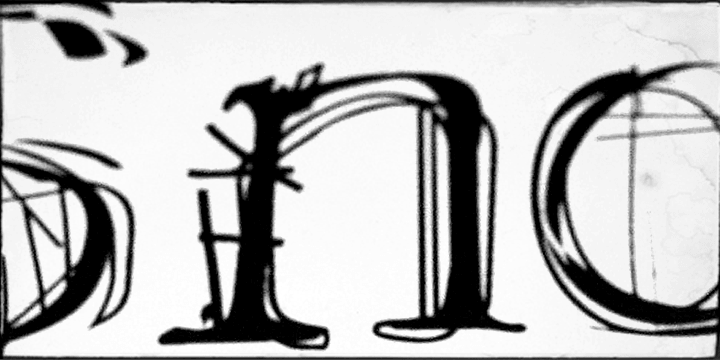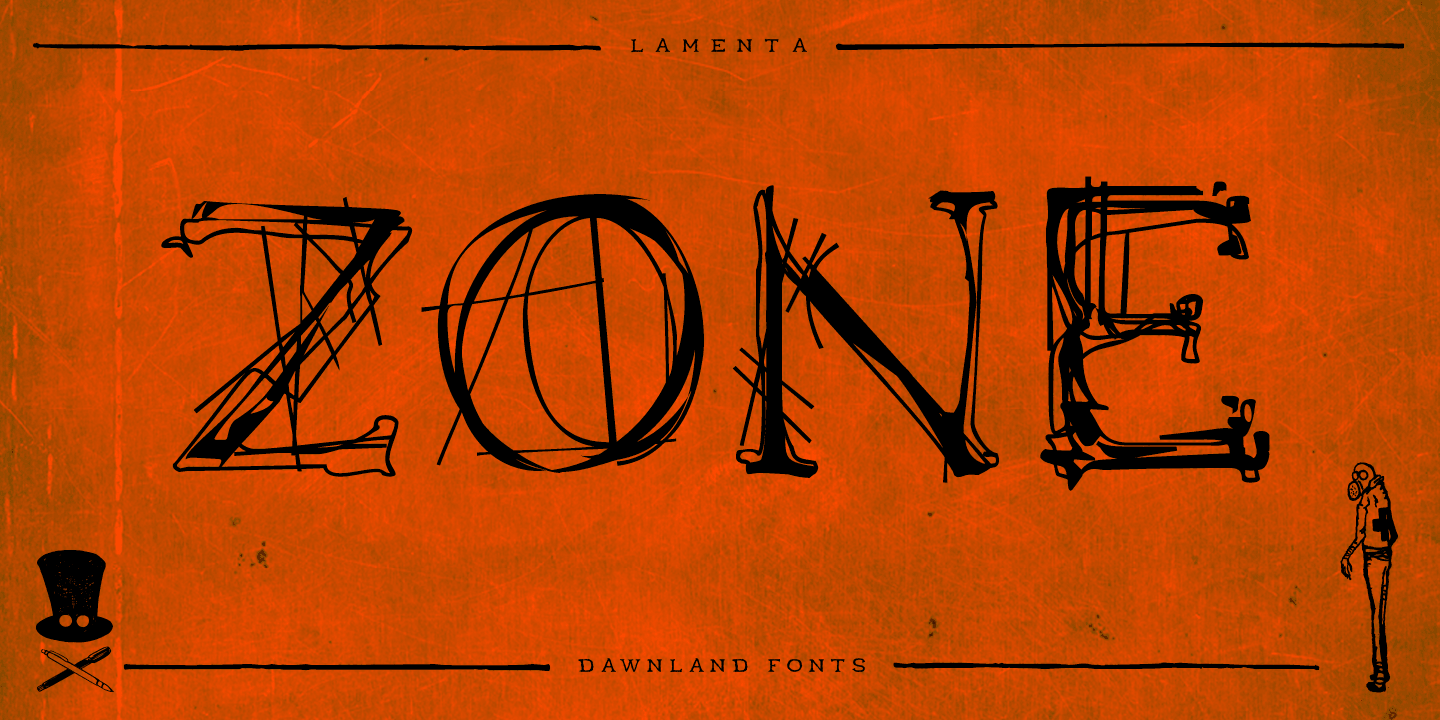
Lamenta X is a grunge font published by Dawnland.
All that remains from this once so proud and glorious antiqua are steel skeletons.
Destroyed. Distorted. Ruins.
The main focus and usage of LamentaX are headlines, posters for event graphics and music/media/game packaging.
LamentaX contain upper- and lowercase letters (A-Z + swedish characters Å Ä Ö).